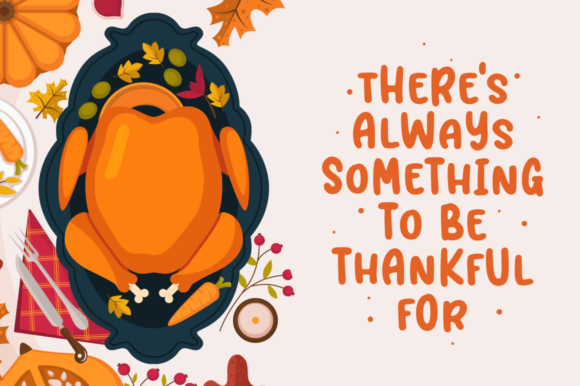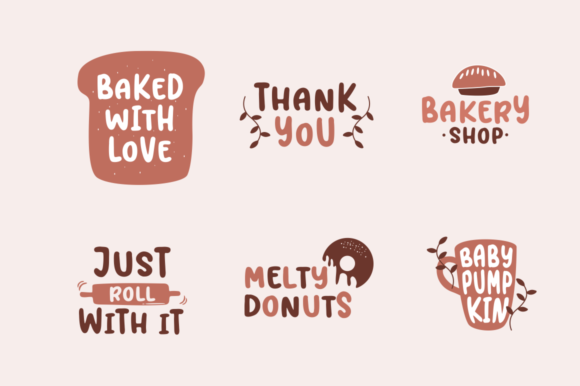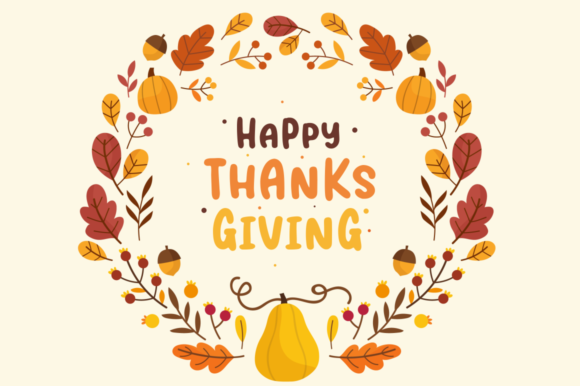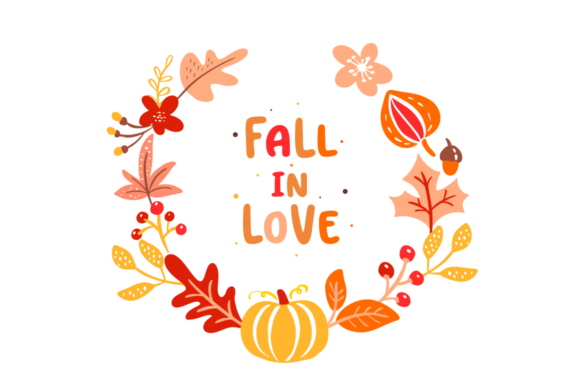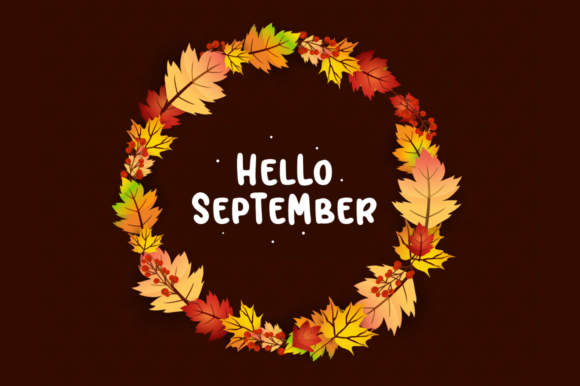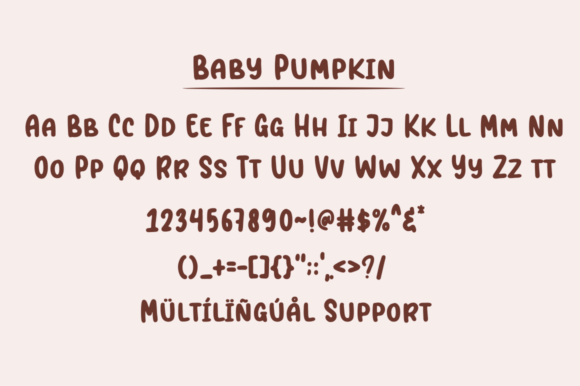
The Perfect Font for Fall Projects: Baby Pumpkin Font
Have you ever stared at a blank design sheet, trying to conjure up the perfect font to capture the essence of autumn? The crunch of leaves beneath your feet, the warmth of a crackling fire, the vibrant colors of changing leaves – it’s a sensory experience that can be difficult to translate onto paper. But what if I told you there’s a font that can transport you back to those cozy fall days, and bring your designs to life?
Enter the Baby Pumpkin Font, a bold and playful display font that’s perfect for any fall-themed project. Whether you’re designing product packaging, labels, or photography watermarks, this font is sure to add a touch of autumnal charm. And for designers, it’s a valuable addition to their toolkit, offering a unique and versatile way to express their creativity.
- Unique Characteristics: The font features a playful, hand-drawn design with subtle imperfections, giving it a charming and whimsical feel, perfect for children’s books, nursery decor, and other creative projects.
Baby Pumpkin Font Review
Overall, I found Baby Pumpkin to be a sweet and playful font, perfect for adding a touch of whimsy to designs. ✨ The rounded edges and soft curves give it a friendly, approachable feel that’s ideal for children’s brands, nursery decor, and other related projects.
- ✨ Rounded edges and soft curves for a friendly feel
- ✨ Perfect for children’s brands, nursery decor, and other related projects
- ✨ Highly legible, even at small font sizes
- ⚠️ Limited versatility outside of children’s design themes
- ⚠️ May not be suitable for formal or professional projects
- ⚠️ Some characters may be less detailed or stylized compared to others
While Baby Pumpkin excels in its intended niche, its limitations become apparent when trying to use it in more general design contexts. Ultimately, I think it’s a great addition to any designer’s toolkit for projects that require a playful, childlike touch.
Tips for Getting the Most Out of Baby Pumpkin Font
Here are some tips for getting the most out of Baby Pumpkin Font:
- Use it for titles and headings to add a playful touch.
- Pair it with other playful fonts for a fun and creative look.
Here are some common use cases for Baby Pumpkin Font:
- Food and drink labels and packaging.
- Stationery and greeting cards.